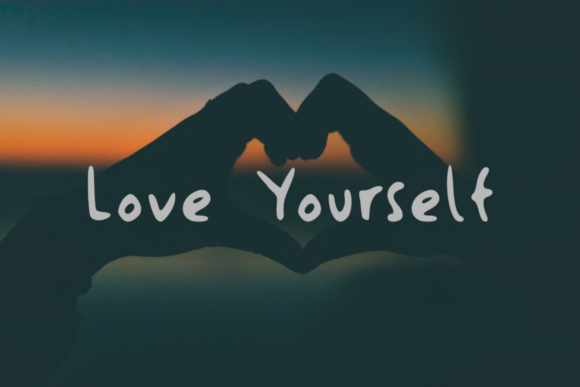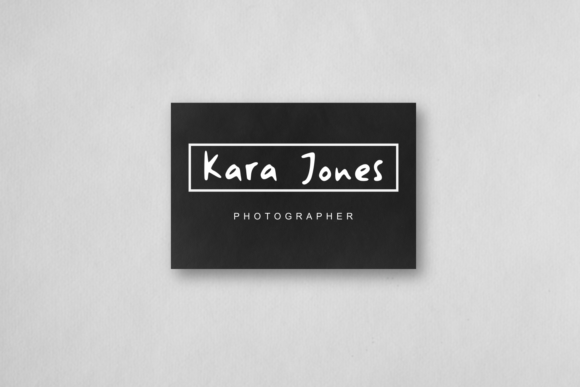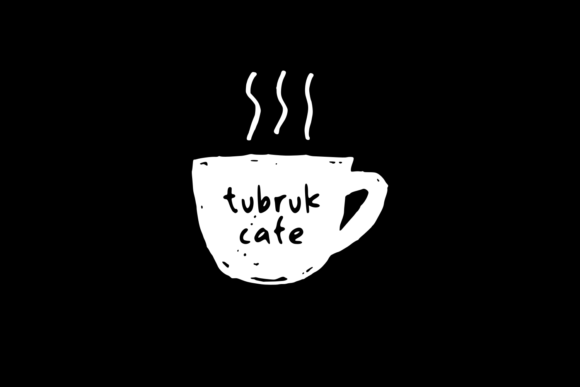
The Artomoro Font: A Handmade Gem for Creative Projects
I’ll never forget the time I was working on a branding project for a local artisan bakery. I had spent hours perfecting the logo design, but something felt off. The font I had chosen just wasn’t capturing the warm, homespun vibe of the bakery’s products. That’s when I stumbled upon the Artomoro font – a natural, handmade gem that instantly elevated my design.
An Honest Review of Artomoro Font
- ✨ Unique, handcrafted feel that adds a touch of personality to any design
- ✅ Perfect for logos, quotes, posters, and more – its versatility is impressive
- 💫 Beautifully crafted letterforms with a natural, organic feel
- 🎨 Great for designs that require a human touch, such as craft or artisanal branding
While Artomoro is an amazing font, there are a few things to keep in mind:
- ⚠️ Some letters may not be suitable for body text due to their unique, handwritten nature
- 🤔 Limited availability of stylistic alternates, which may limit design flexibility
The Story Behind Artomoro Font
Artomoro was designed by a talented typographer who wanted to create a font that captured the essence of handmade craftsmanship. Inspired by traditional lettering techniques, Artomoro is a unique blend of modern style and vintage charm.
Q: What makes Artomoro font unique?
A: Artomoro’s handmade, natural feel sets it apart from other fonts. Its unique letterforms and beautiful craftsmanship make it perfect for designs that require a personal touch.
Q: Is Artomoro suitable for body text?
A: While Artomoro is a beautiful font, it may not be the best choice for body text due to its unique, handwritten nature. It’s better suited for headlines, titles, and short paragraphs.